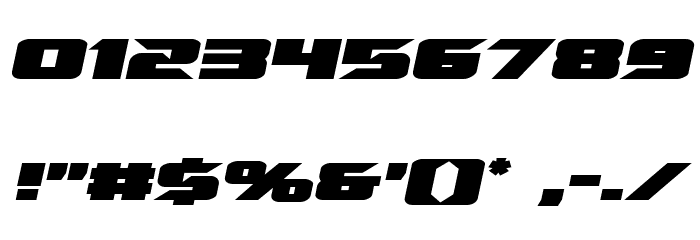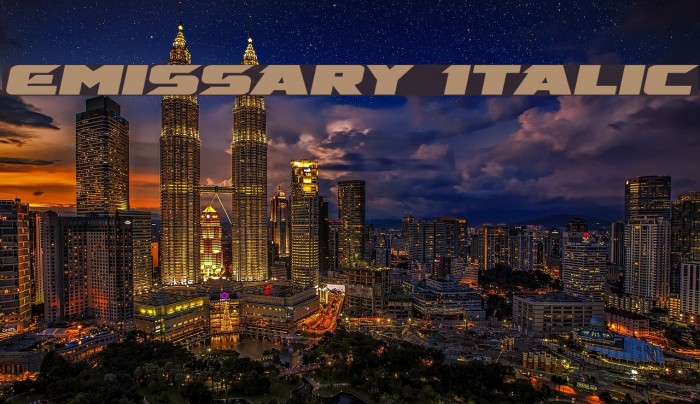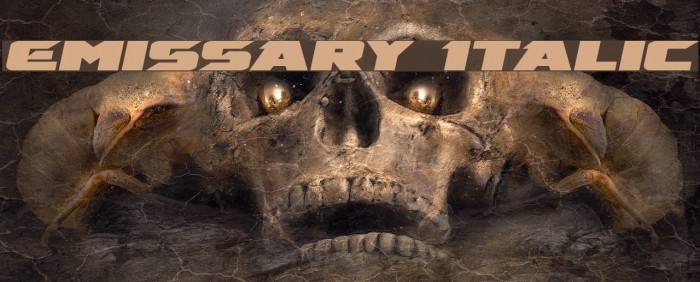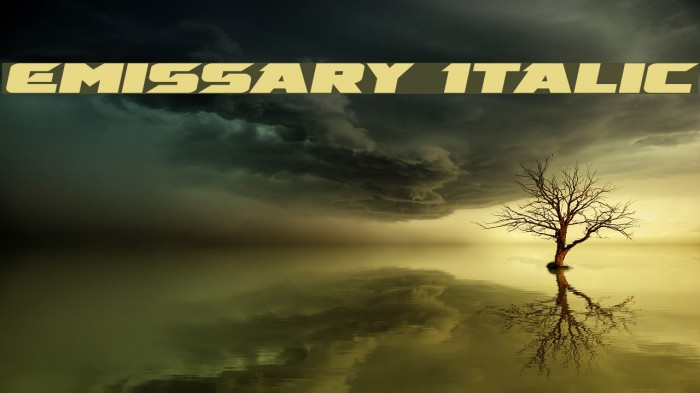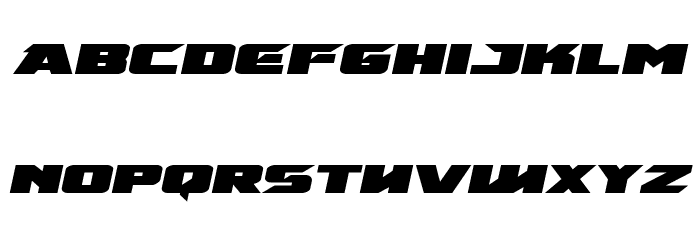
Emissary Italic Font
This font features a bold and dynamic style with a strong italic slant, giving it a sense of motion and energy. The characters are wide and angular, with sharp edges and a futuristic appearance. The uppercase and lowercase letters maintain a consistent design, emphasizing boldness and readability. Numbers and special characters follow the same stylistic approach, ensuring uniformity across all glyphs. The font's design is ideal for projects that require a modern and impactful look.
A bold, italic font with a futuristic and dynamic style.
• Proposed Projects: Ideal for sports branding, video game titles, sci-fi movie posters, and dynamic logo designs.